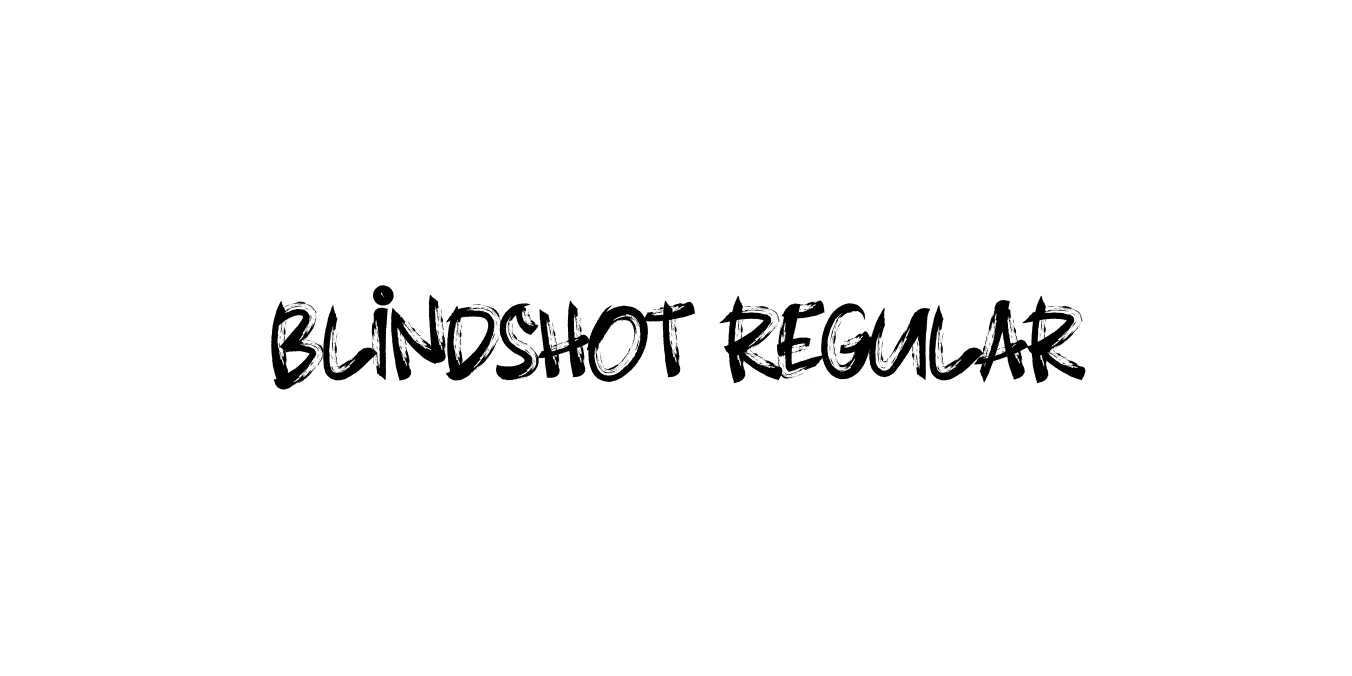
Blindshot Regular
Designed by Agung Rohmat (Garisman Studio)
Blindshot Regular is a high-energy, dynamic brush script typeface designed by Garisman Studio. It captures the essence of raw urban aesthetics through its bold strokes and realistic dry-brush textures. The font is meticulously crafted to mimic the appearance of hand-painted lettering, providing a sense of grit and authenticity that is often missing from cleaner, more traditional digital scripts. It is an excellent choice for designers looking to inject a powerful, human touch into their visual compositions.
Beyond its striking appearance, Blindshot Regular is highly versatile for modern creative projects. It excels in environments where a sense of movement and urgency is required, such as sports branding, streetwear labels, and promotional marketing materials. Its organic flow and aggressive style make it a standout option for headline typography, ensuring that any message it carries is delivered with maximum impact and a unique, artistic flair.
Blindshot Regular Best Uses
Perfect for creating edgy logos and graphics for t-shirts, hoodies, and caps.
Ideal for high-impact Instagram stories, YouTube thumbnails, and viral quotes.
Great for concert flyers, album covers, and festival promotional materials.
Adds a competitive and energetic feel to team logos and event signage.